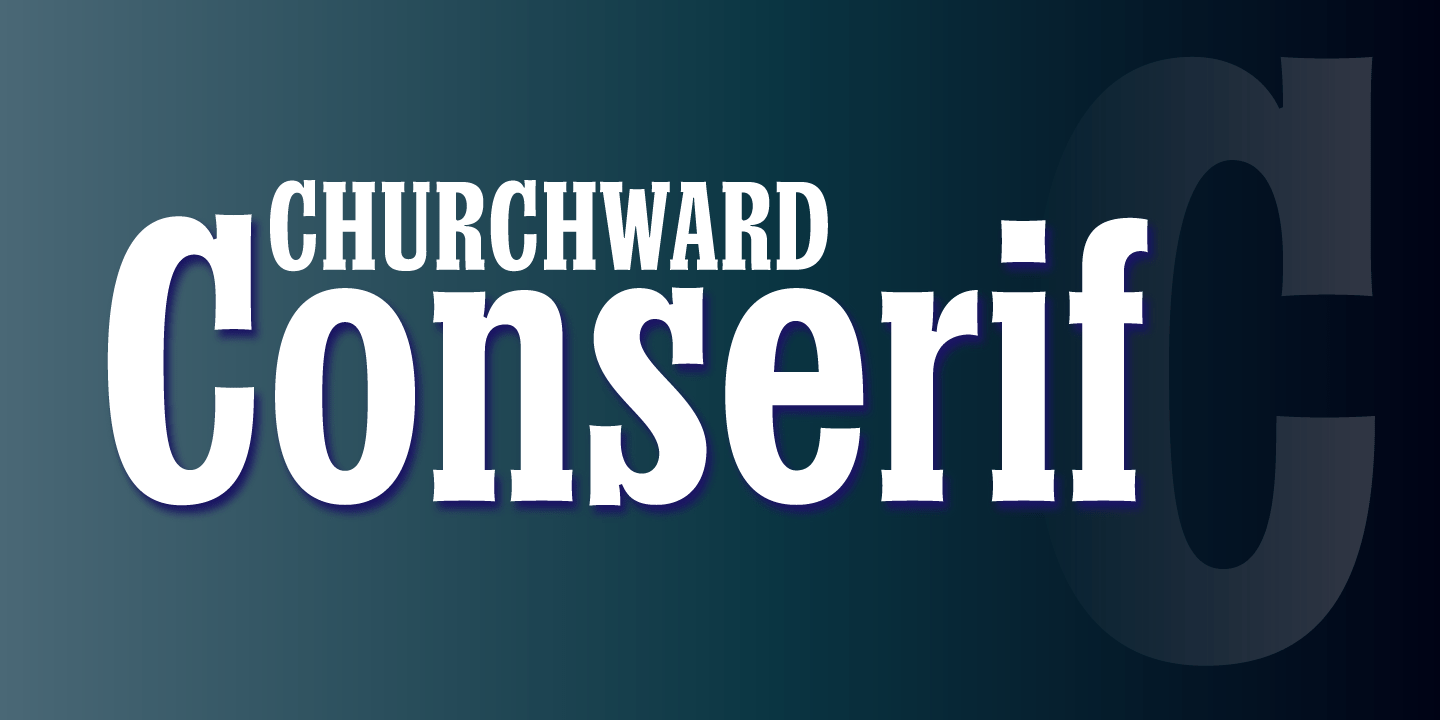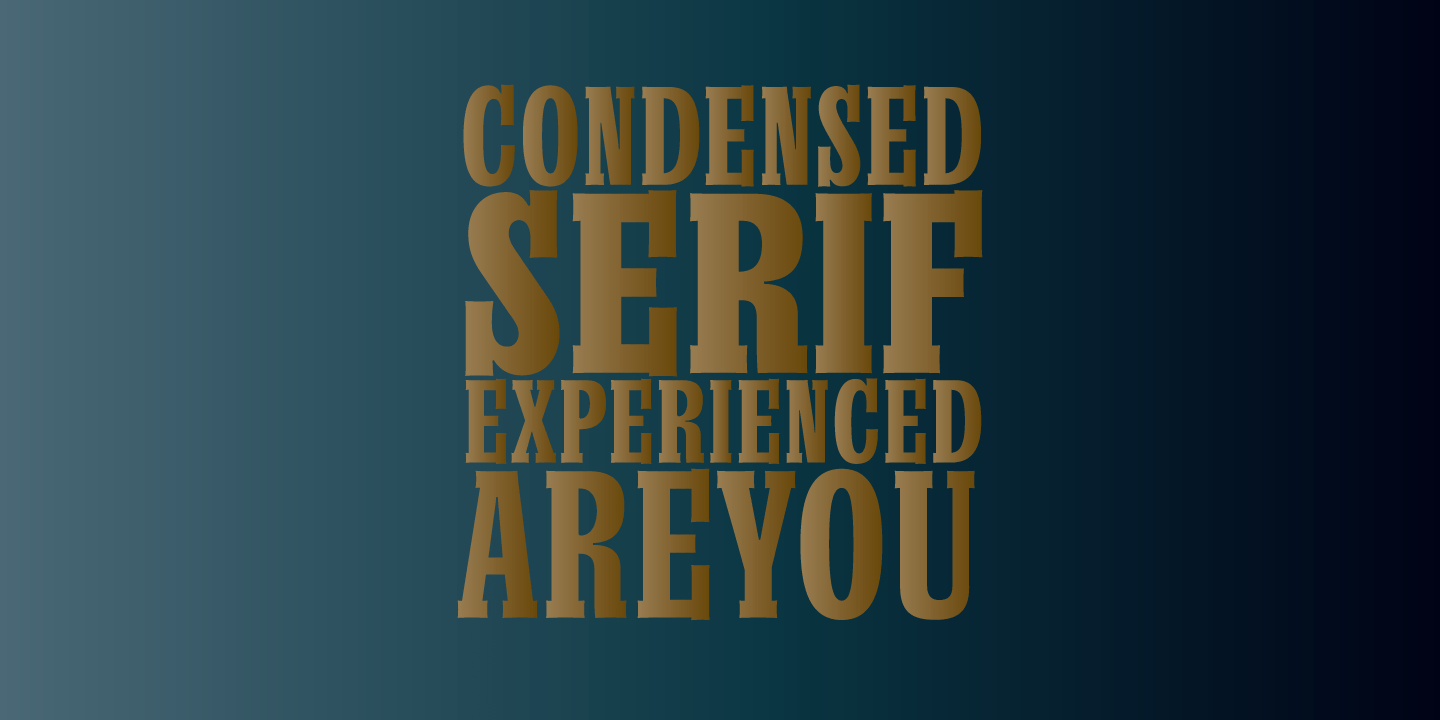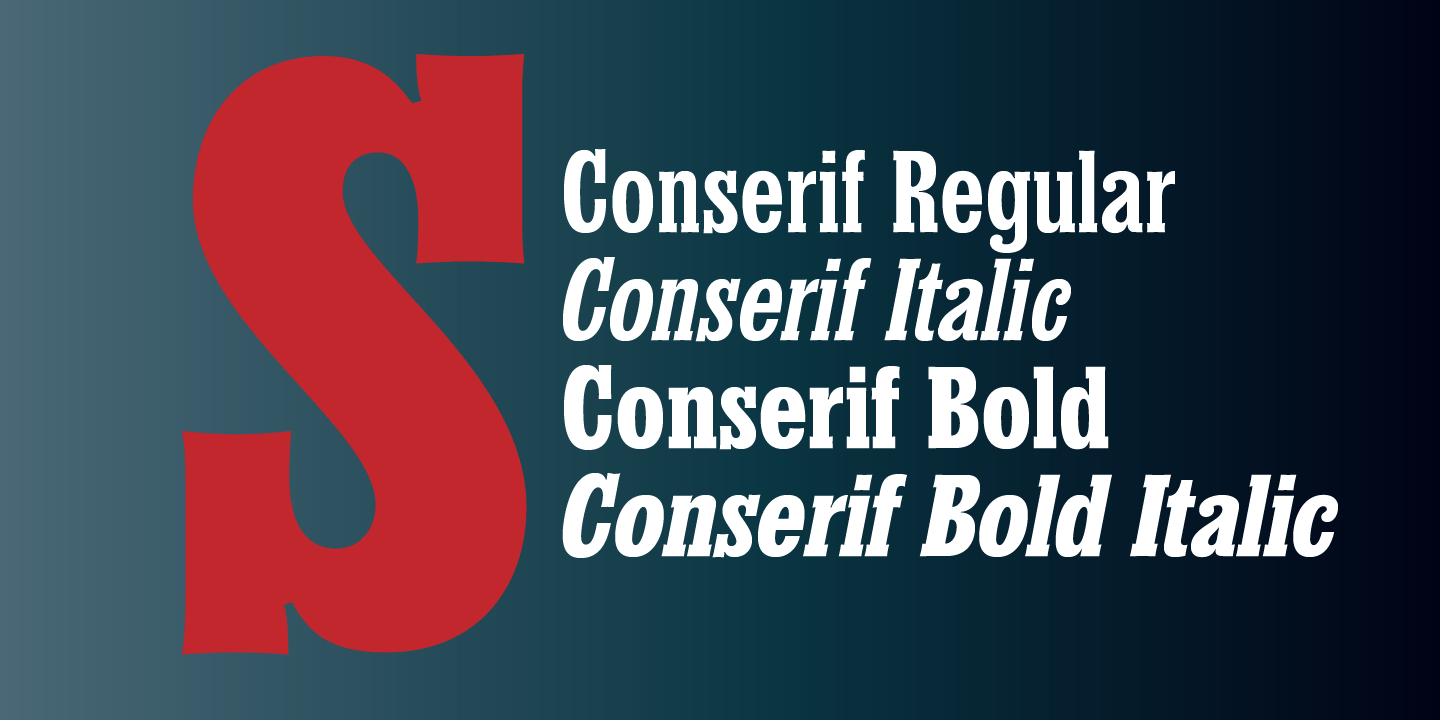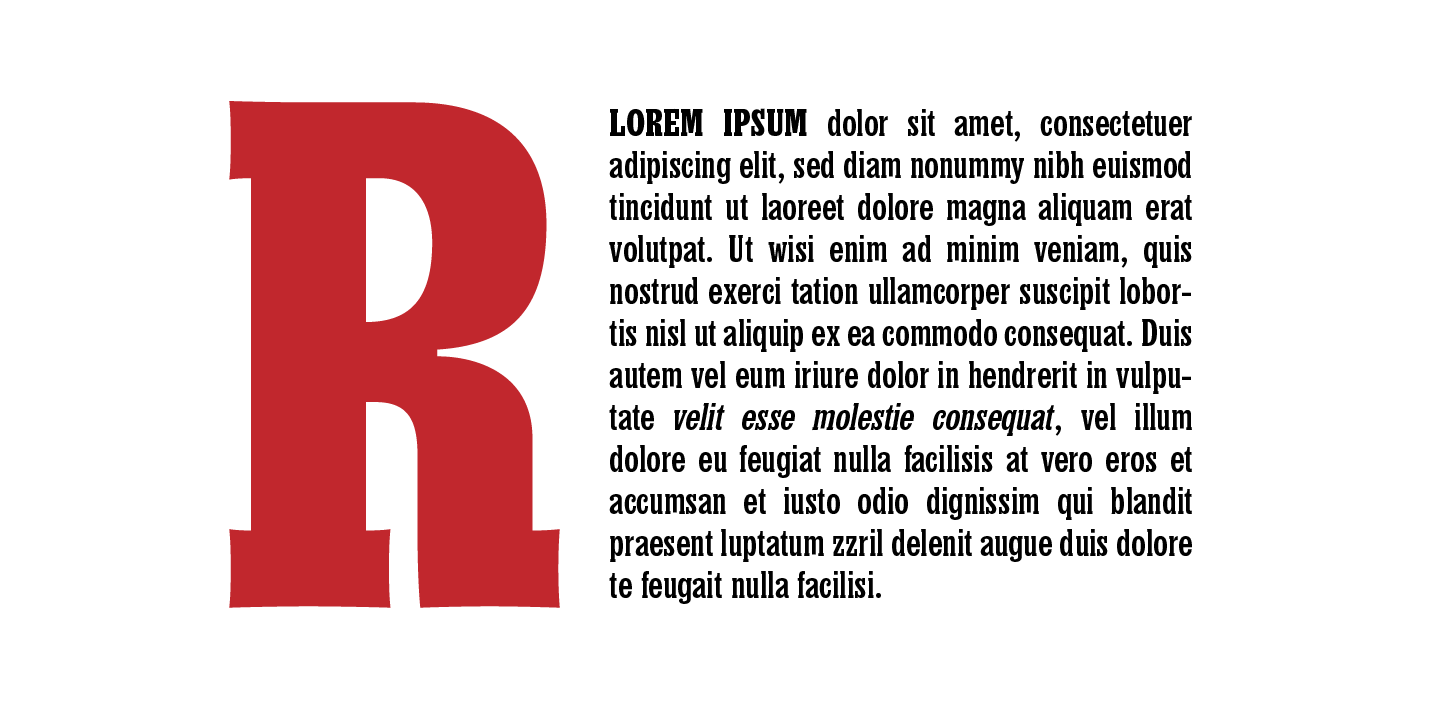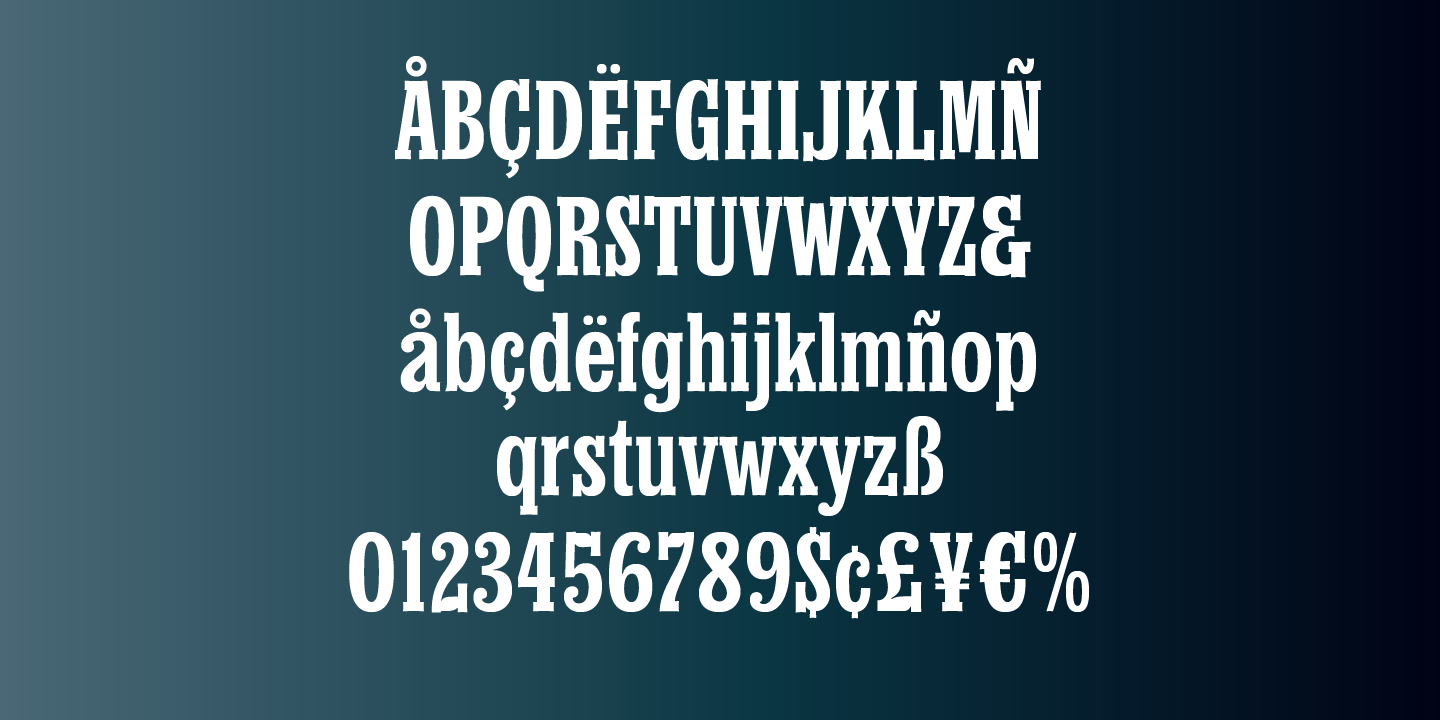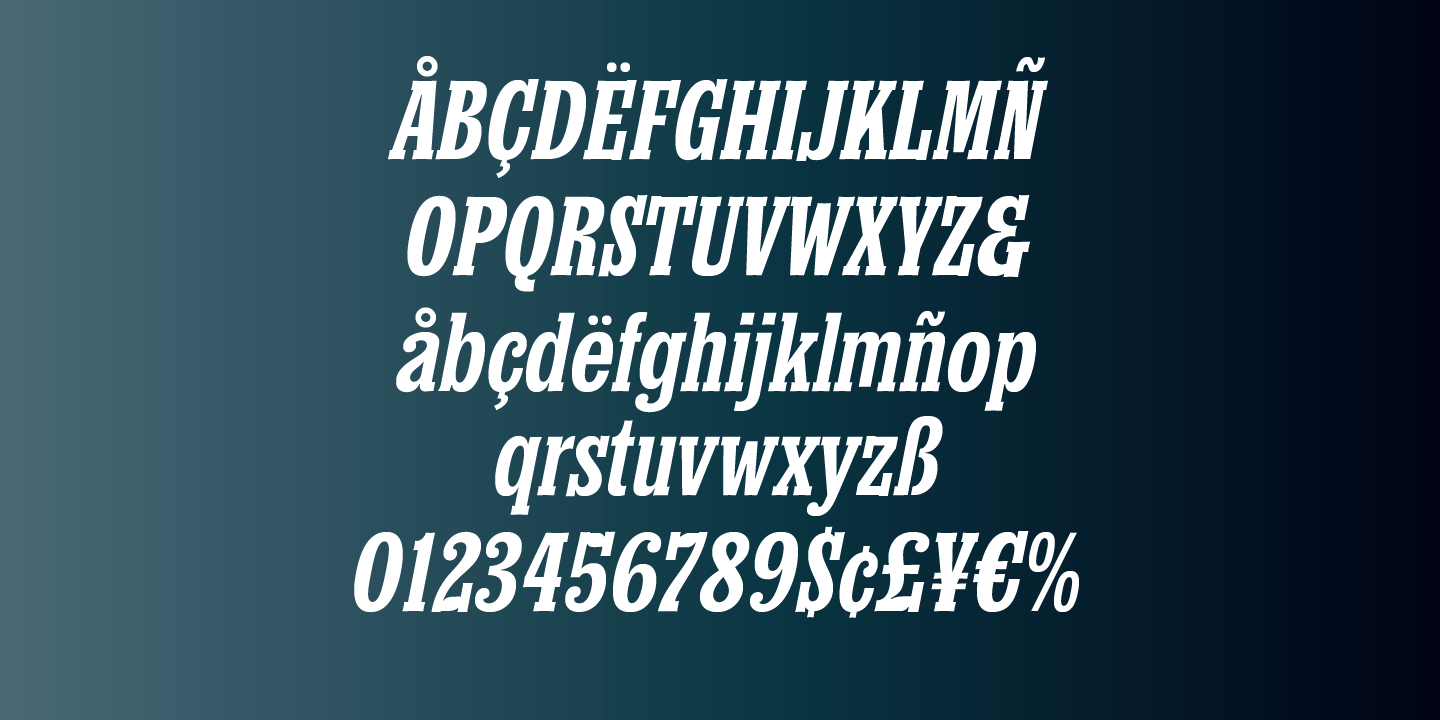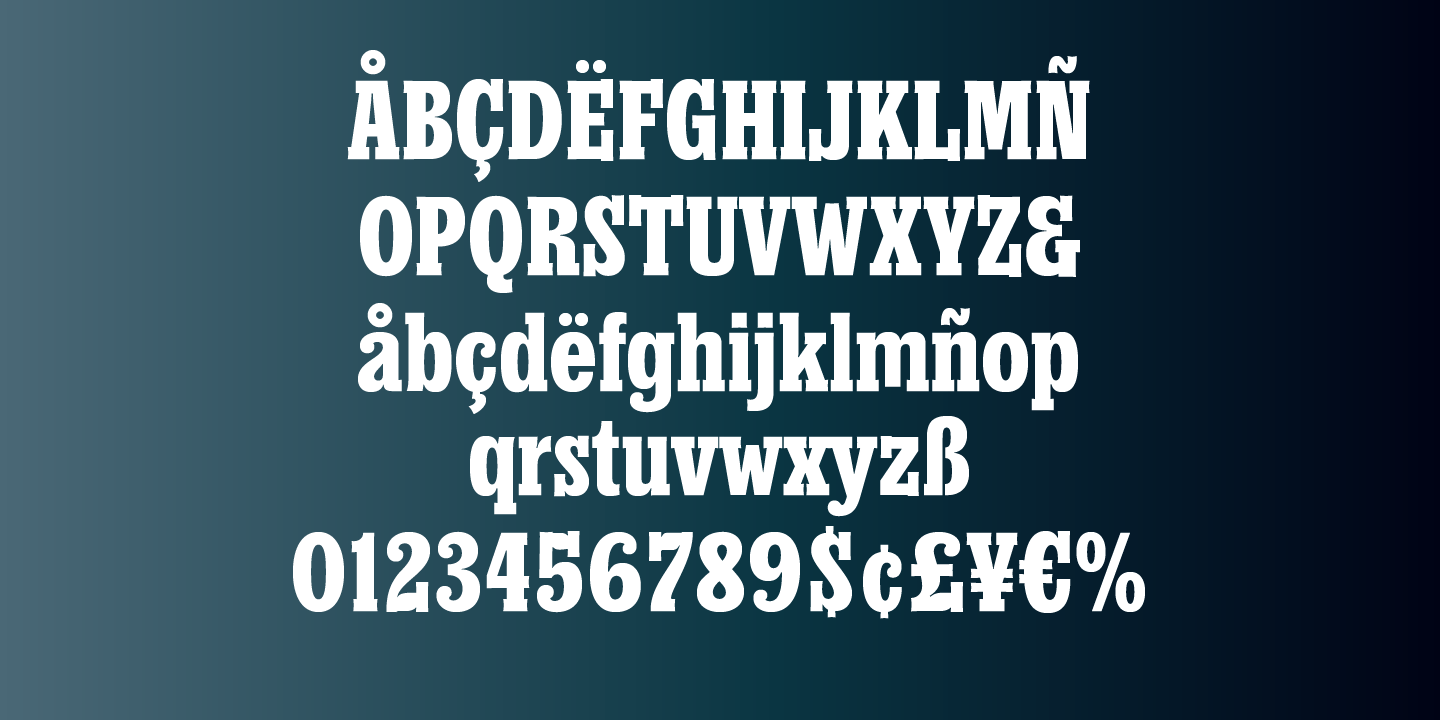
Churchward Conserif
Churchward Conserif is a slab serif typeface designed in 2005 by Joseph Churchward. As the name implies, Conserif is a condensed text and display face. The slab serif is slightly concaved on all sides giving it a subtle softness, despite the formality of a serif design. And Joseph was never shy about adding some distinctive elements throughout the typeface, like the protruding vertical serifs on the cap E, F, L, and Z, or the raised terminal end on the middle stroke of the lowercase m. It's precisely those little features that always give a Churchward typeface it's unique style. Churchward Conserif comes in two weights, Regular and Bold, each with a matching Italic. The character set supports many European languages.
Regular
Italic
Bold
Bold Italic